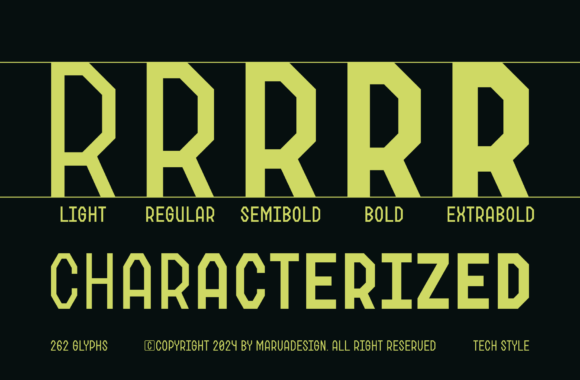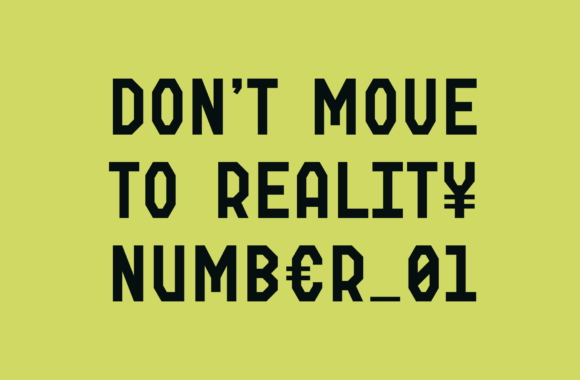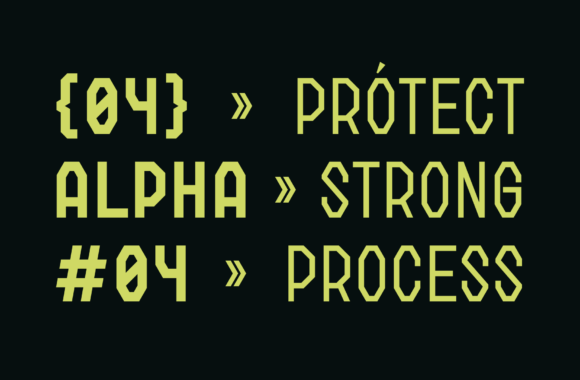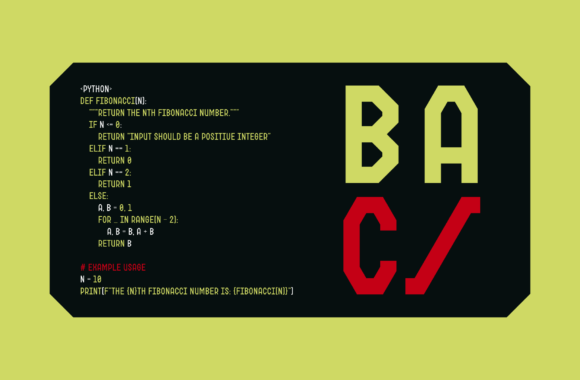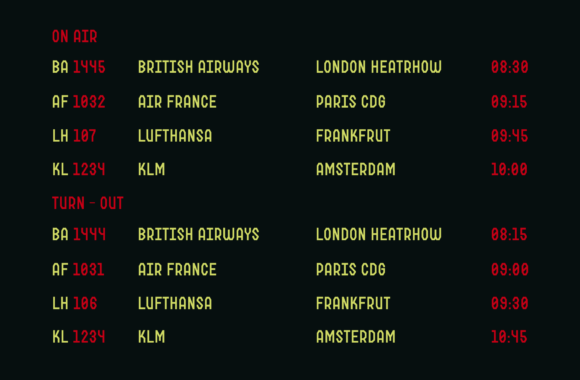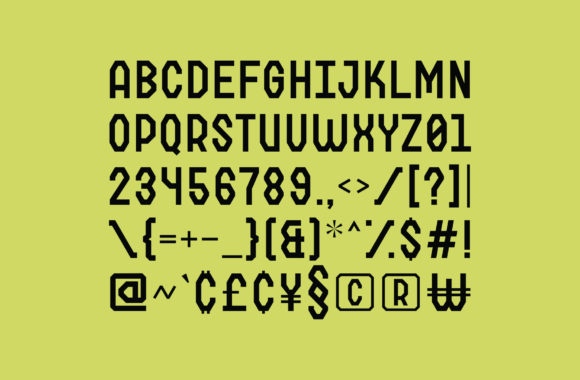
Introduction to Matech Font
Introducing **Matech** Monospace Techno is a modern, versatile font designed for both functional and aesthetic applications, particularly in the tech and design industries.
Characterized by its clean, uniform structure and geometric precision, this typeface ensures excellent readability and a sleek, contemporary appearance **Light** The Light style of Matech Monospace Techno is delicate and airy, perfect for subtle text elements where a soft touch is desired.
Key Features of Matech Font